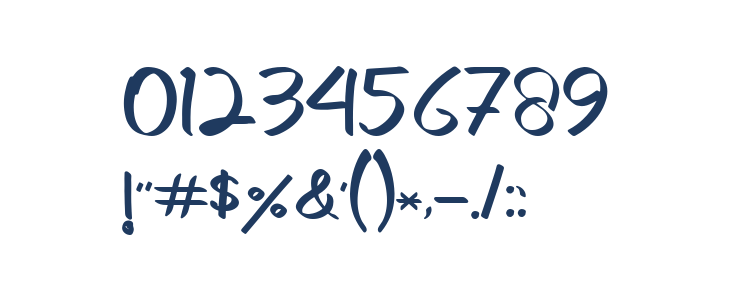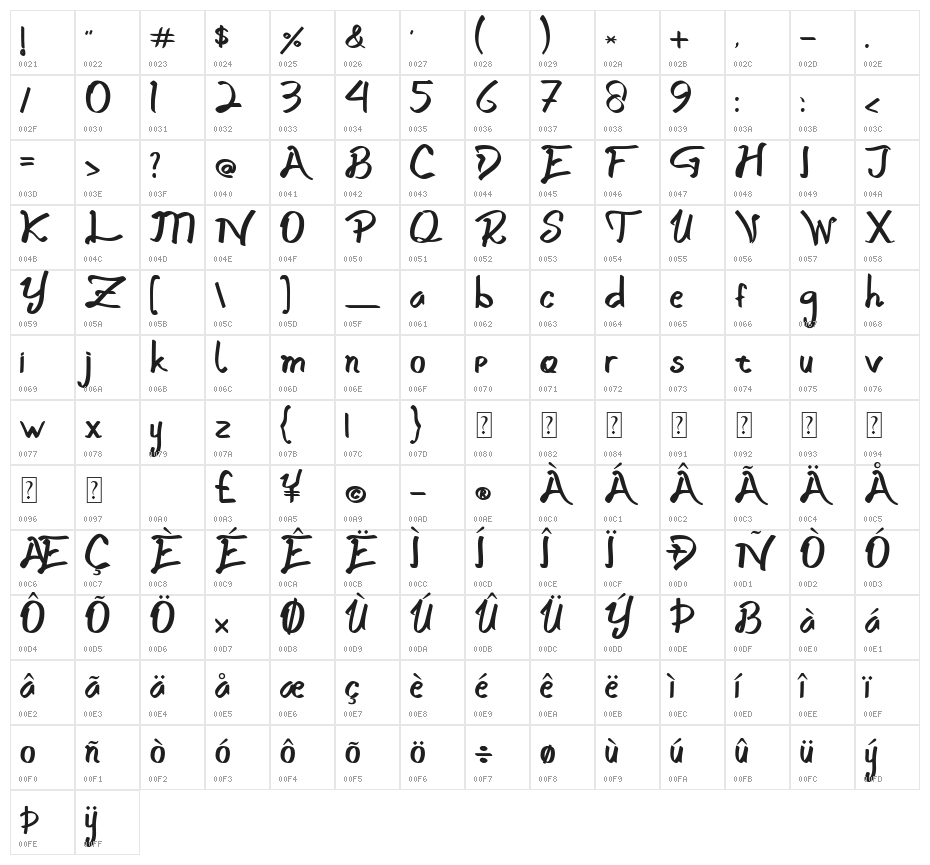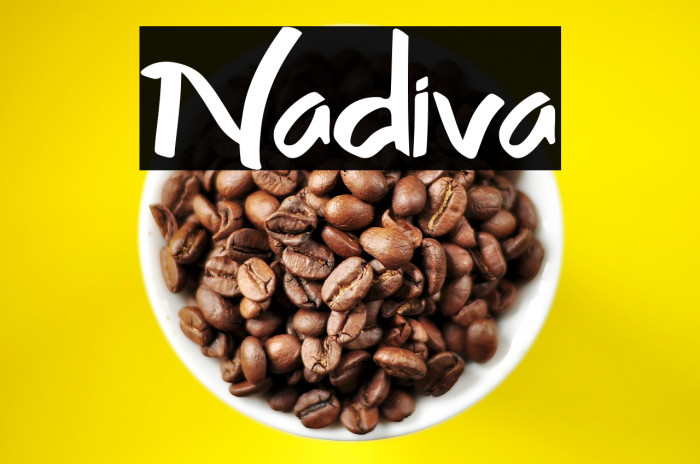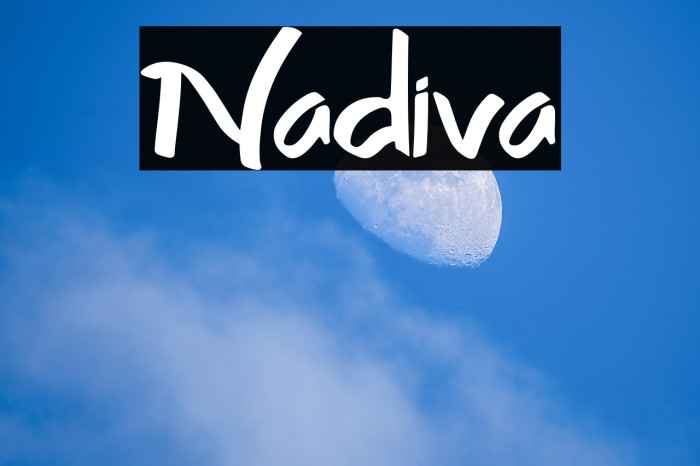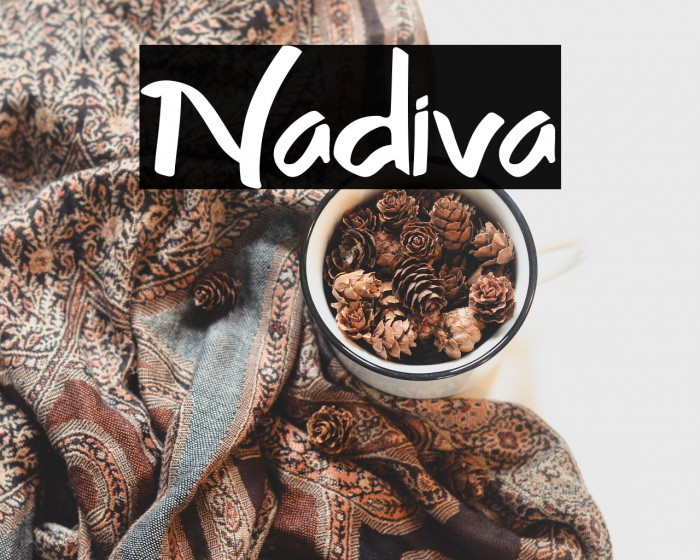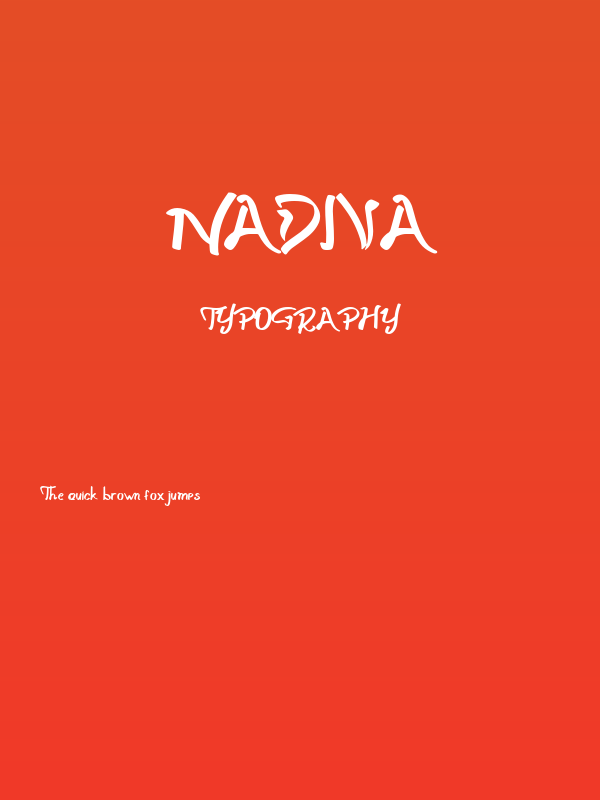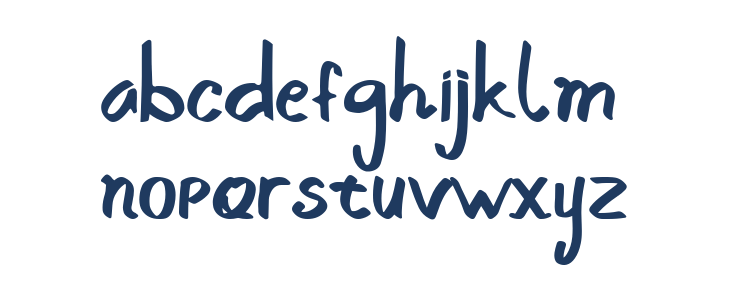
Nadiva Font
Nadiva Description
This font features a bold and expressive handwritten style, characterized by its fluid and dynamic strokes. The uppercase letters are slightly slanted, adding a sense of motion and energy, while the lowercase letters maintain a consistent flow with rounded edges. The numerals are bold and easily readable, complementing the overall style. Special characters are creatively designed, maintaining the playful and artistic essence of the font. This font is perfect for projects that require a personal and informal touch, such as invitations, greeting cards, and creative branding.
| Proposed Projects | Ideal for invitations, greeting cards, creative branding, and artistic projects. |